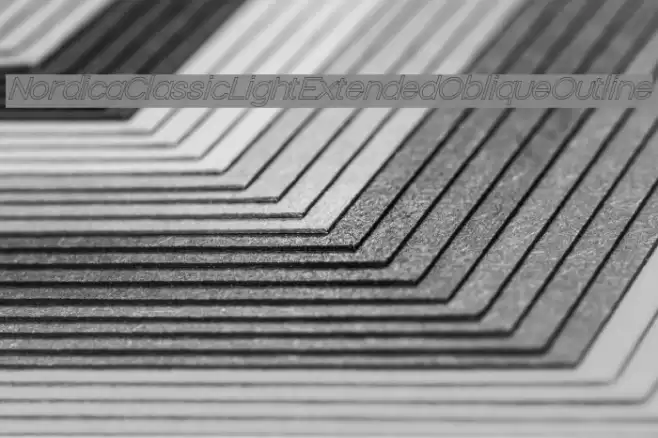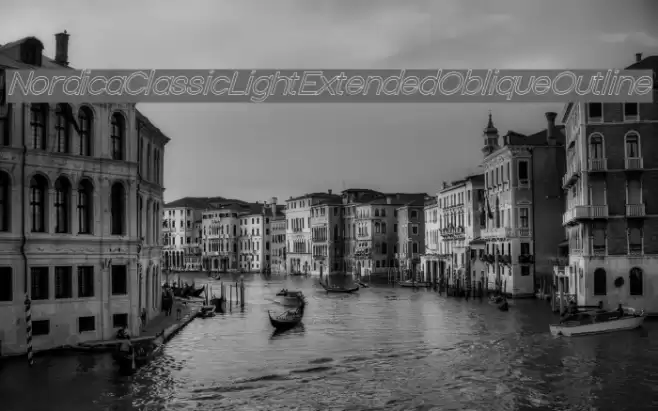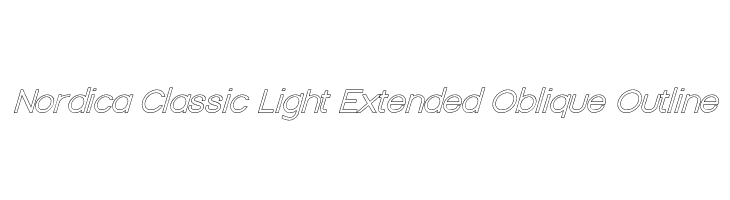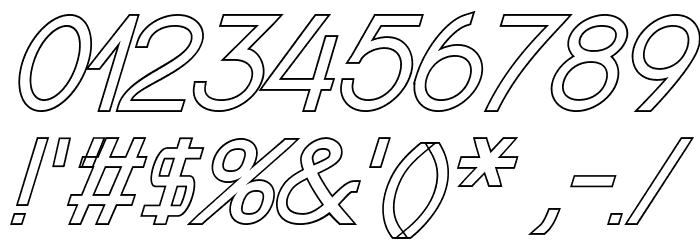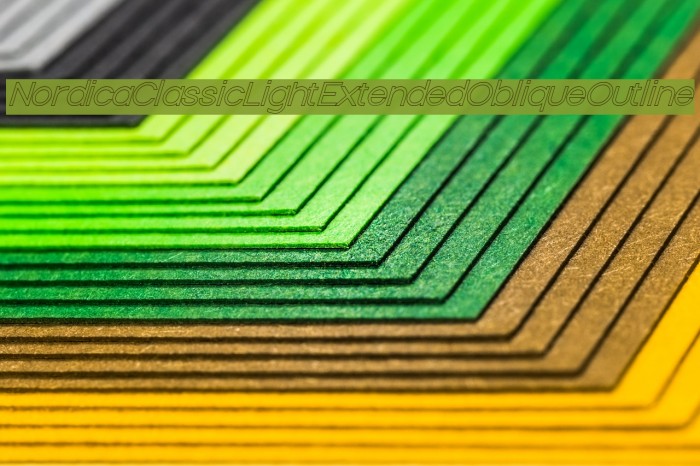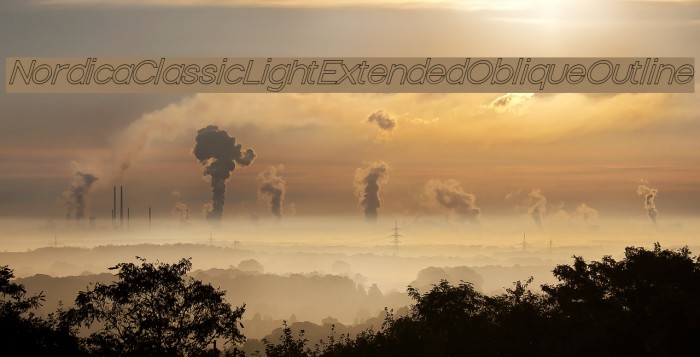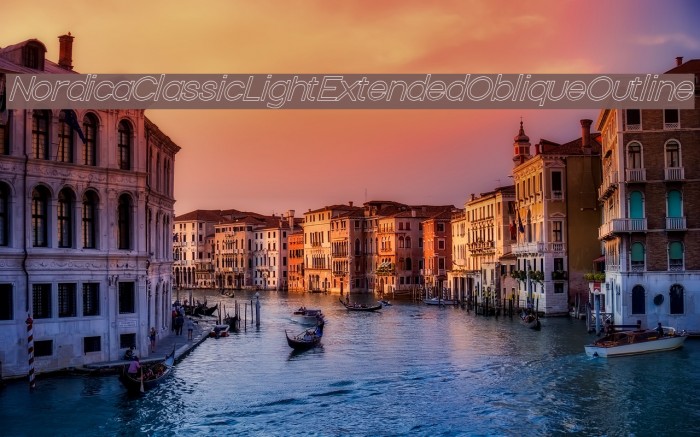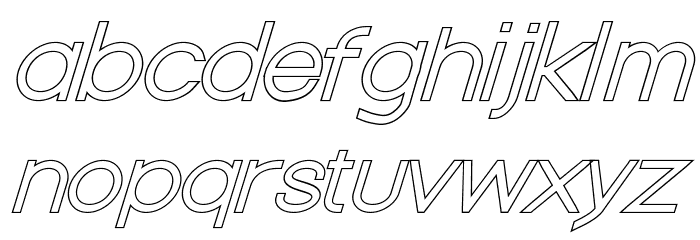
Nordica Classic Light Extended Oblique Outline
This font features a sleek and modern design with an oblique orientation, giving it a dynamic and forward-leaning appearance. The characters are outlined, providing a unique and stylish look that stands out. The extended width of the letters adds a sense of openness and space, making it ideal for designs that require a contemporary and airy feel. The light weight of the strokes contributes to its elegant and refined aesthetic, while the consistent line thickness ensures clarity and readability. This font is perfect for projects that aim to convey sophistication and modernity.
A modern, oblique, outlined font with extended width and light weight.
- Proposed Projects: Ideal for modern branding, advertising, headlines, and editorial design.
- Weight: Light
- Width: Expanded
- Use Case: Headlines, Logos, Branding